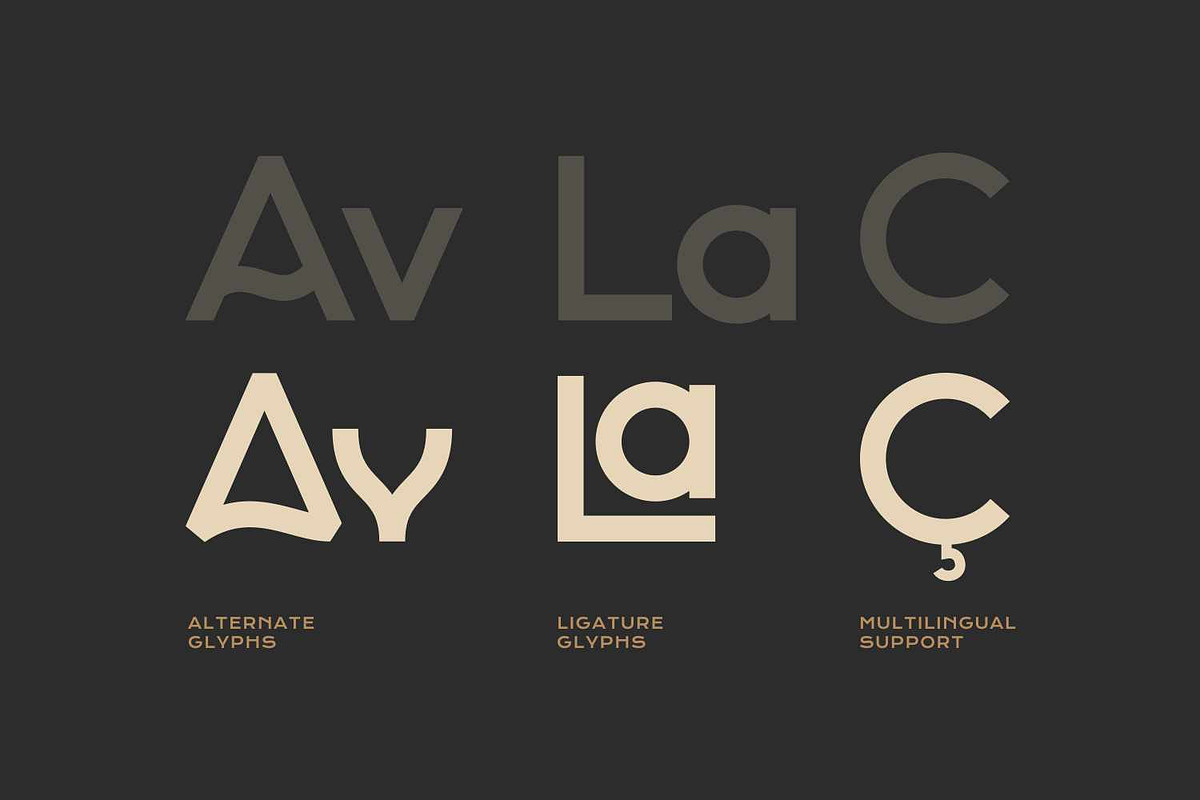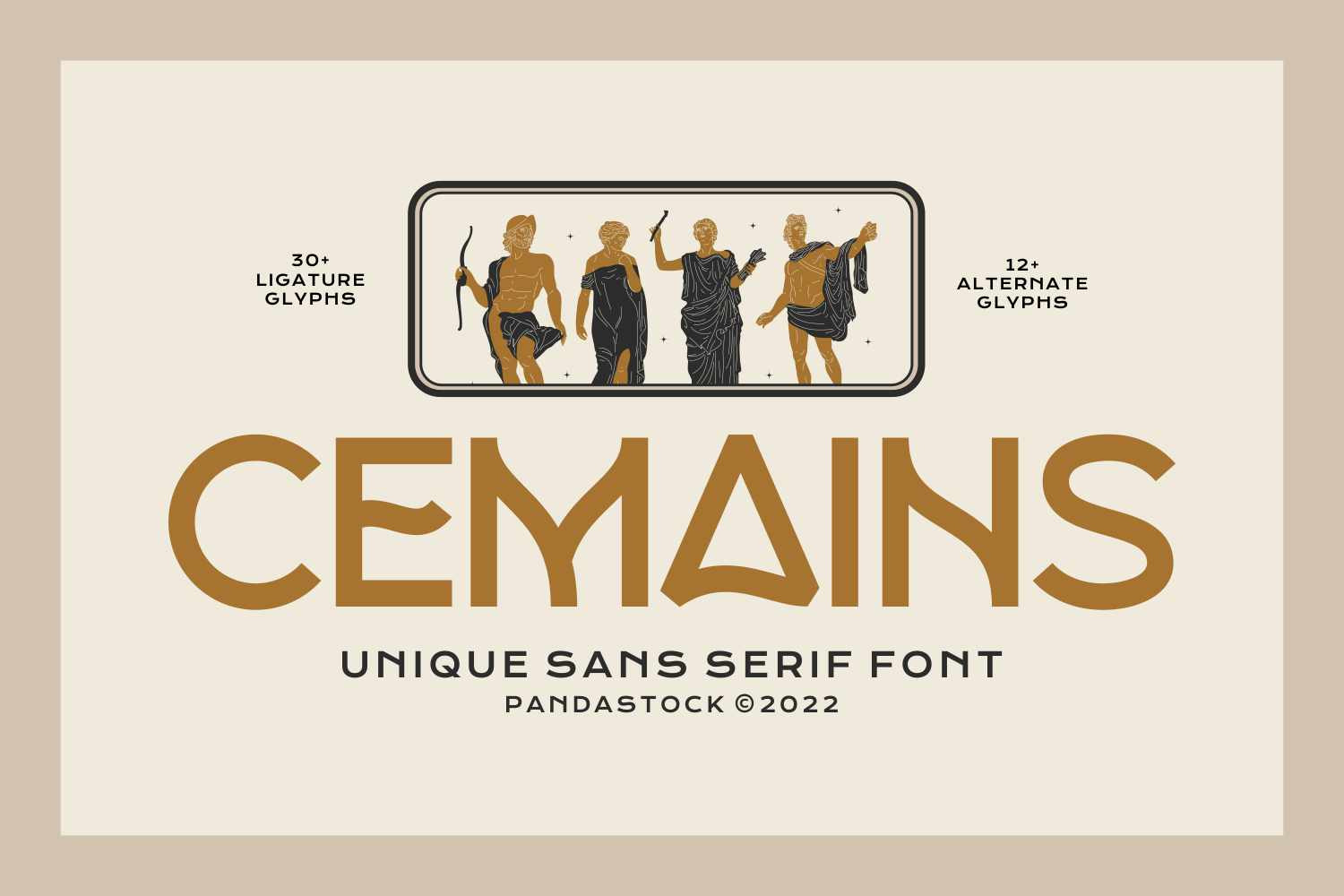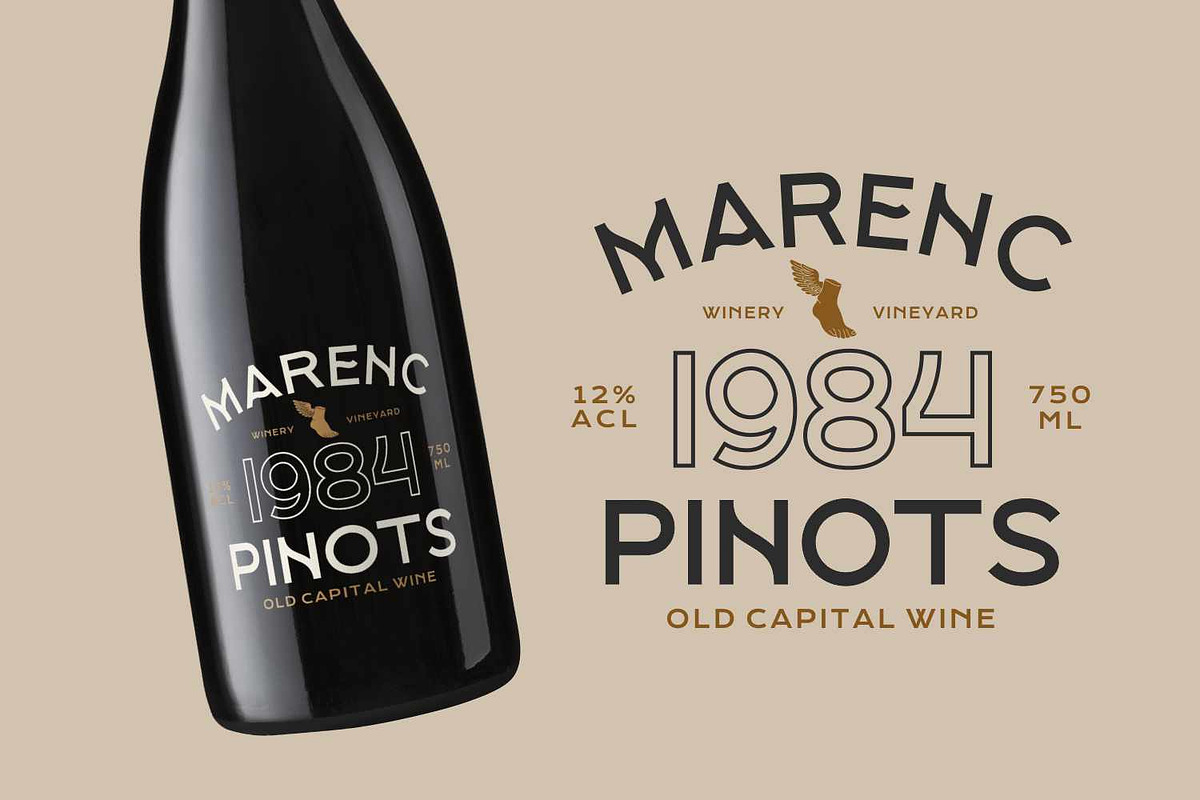
Cemains - Vintage Sans Serif Font
Cemains is a masterclass in blending ancient aesthetics with modern minimalism. It captures a "Neo Antique" vibe that feels both grounded in history and perfectly suited for contemporary high end branding. The font draws heavy inspiration from Hellenic letterforms.
This font is an ideal choice for luxury branding, where its unique blend of classical influence and modern minimalism creates an immediate sense of prestige. Its artistic flourishes and custom ligatures make it a standout option for fashion magazine headlines and art catalogs, offering a high-end editorial feel. For logo design, the distinctive character shapes provide a custom, hand crafted look, while its "neo antique" aesthetic is a perfect match for museum and cultural exhibits looking to bridge the gap between history and contemporary design.
Punctuation, Number, and Symbol